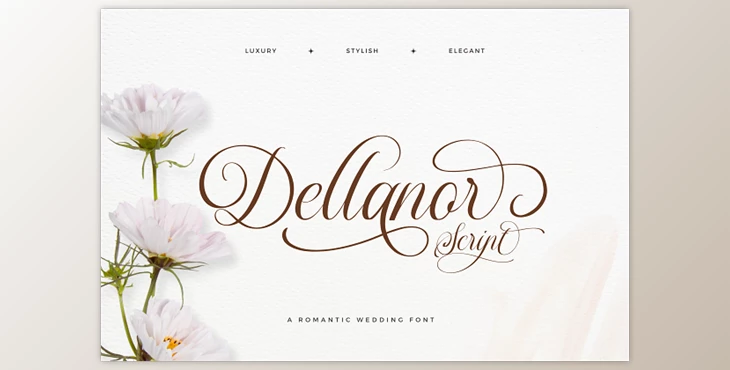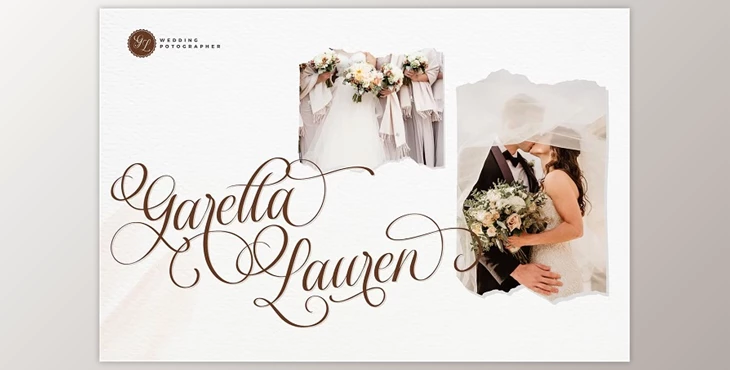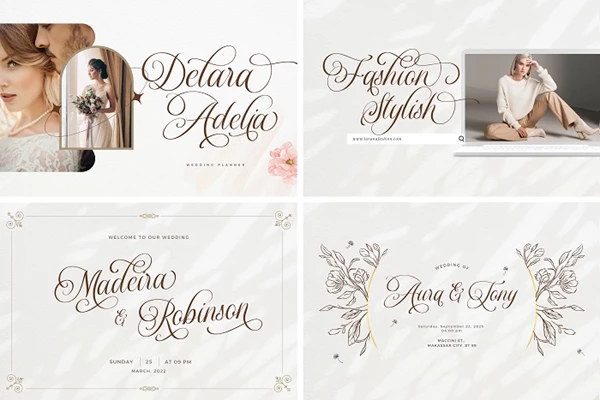
The Dellanor Script - A Wedding Font is a luxurious and elegant wedding font designed to add sophistication and romance to your projects.
With a comprehensive set of glyphs, including alternates and ligatures, this ornate typeface offers versatile customization options for wedding invitations and design projects. Available in various formats, including OTF, TTF, WOFF, and WOFF2, it provides multilingual support and complete typographic expression.